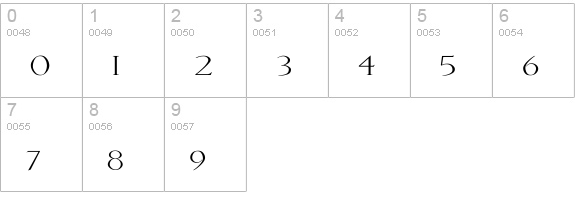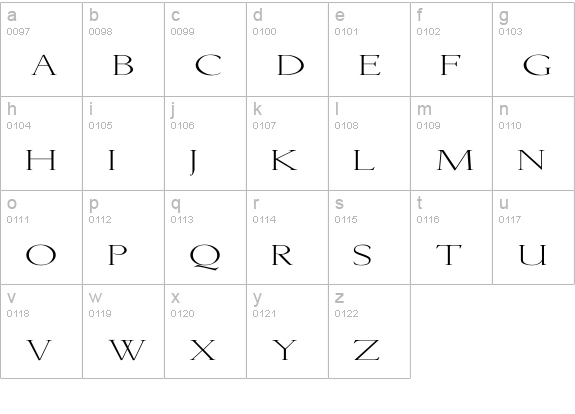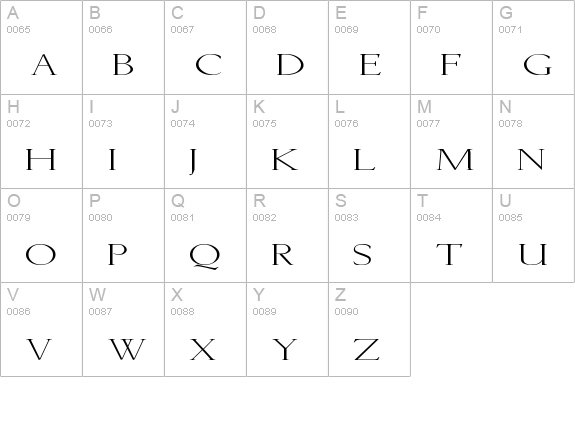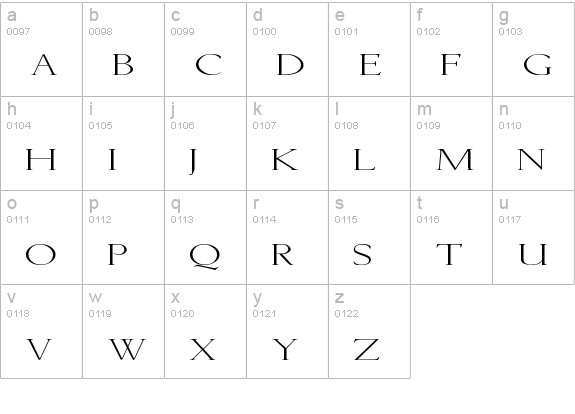
Lichtner Ex Font Details
Lichtner Ex is a modern and elegant font that exudes sophistication and style. With its sleek lines and graceful curves, this typeface is perfect for adding a touch of refinement to any design project. The versatility of Lichtner Ex makes it suitable for a wide range of applications, from branding to editorial design. What sets Lichtner Ex apart is not only its timeless appeal but also the fact that it is available for free download. That's right, you can access this exquisite font at no cost on FontsMarket.com. So whether you're a designer looking to elevate your creations or a business in need of a polished visual identity, Lichtner Ex is the perfect choice. Download it today and see how it can transform your projects with its unparalleled beauty and sophistication.